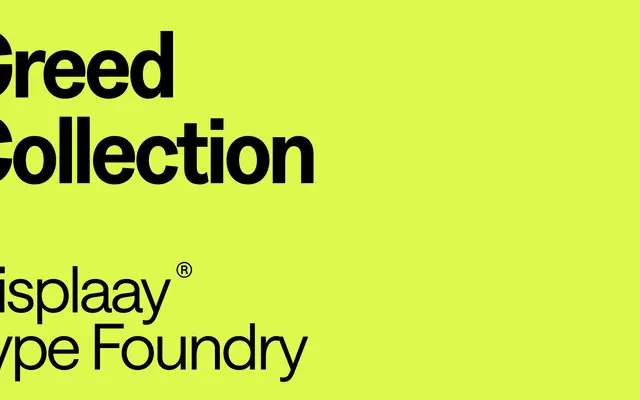
A five-width grotesque collection from Displaay, spanning 30 weights and 60 styles with a variable font offering weight, slant and width axes, pitched squarely at rave and club-culture aesthetics.
Greed comes in five subfamilies running from Condensed to Extended, each offering six weights from Light to Heavy with matching italics, for a total of 60 static styles. A variable font with three axes — weight, slant and width — gives further flexibility across the full range. The branding and specimen work is steeped in 1990s UK rave imagery, making it a pointed choice for music, nightlife and counterculture-adjacent projects.
Greed is a wide-ranging display grotesque with five distinct width variants and a strong rave and club-culture visual identity, positioning it firmly as a display typeface despite functional text weights.